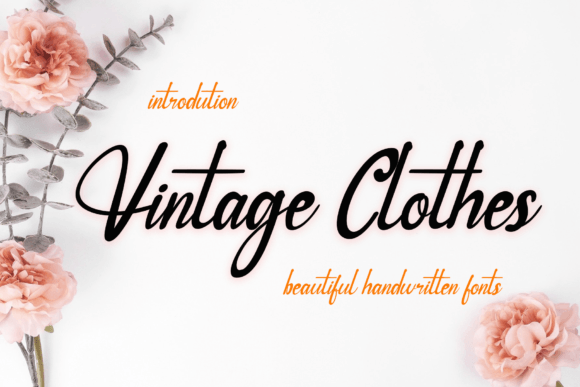
Prepare yourself to be swept away by the enchanting allure of Vintage Clothes, a captivating script font that exudes charm and playfulness like no other. Crafted with meticulous attention to detail, this exquisite font is a testament to the enduring appeal of handwritten artistry.
Imagine the joy of crafting wedding invitations that radiate timeless elegance, invitations that capture the essence of your love story and transport your guests to a realm of pure enchantment. Vintage Clothes, with its graceful curves and whimsical flourishes, will transform your words into an unforgettable symphony of visual delight.
Step into a world where creativity knows no bounds, where your designs come alive with the infectious energy of Vintage Clothes. Let your imagination soar as you create posters, flyers, and branding materials that radiate warmth and personality. This font is a true chameleon, seamlessly adapting to a myriad of styles, from vintage-inspired designs to contemporary creations.
With Vintage Clothes, you'll discover a font that's not just a collection of letters, but an expression of your unique style and vision. It's a font that speaks volumes, communicating your messages with a touch of whimsy and a dash of nostalgia.
So, embrace the magic of Vintage Clothes and embark on a creative journey like never before. Let your designs blossom with charm and authenticity, leaving an indelible mark on the hearts of all who encounter them.